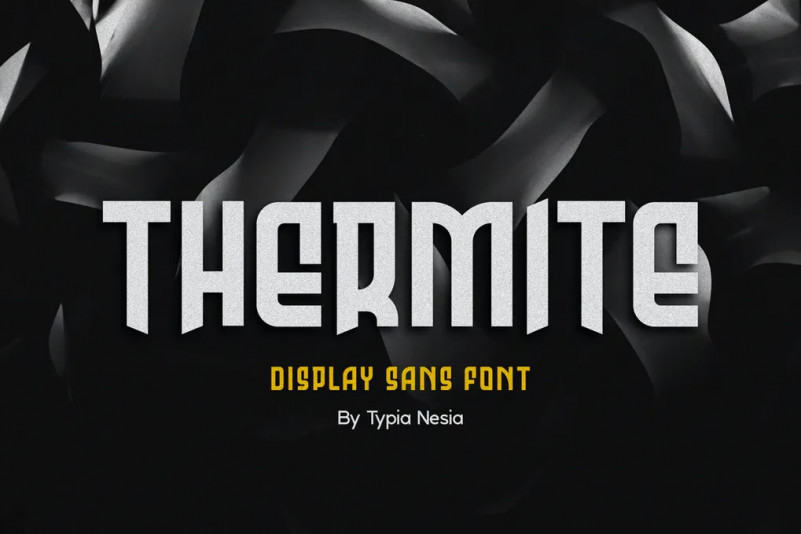
Thermite Font
Thermite font can be used in different purposes: lettering and logotype, labels, t-shirts, product packaging, invitations, advertising, and any classic / vintage typography design projects.